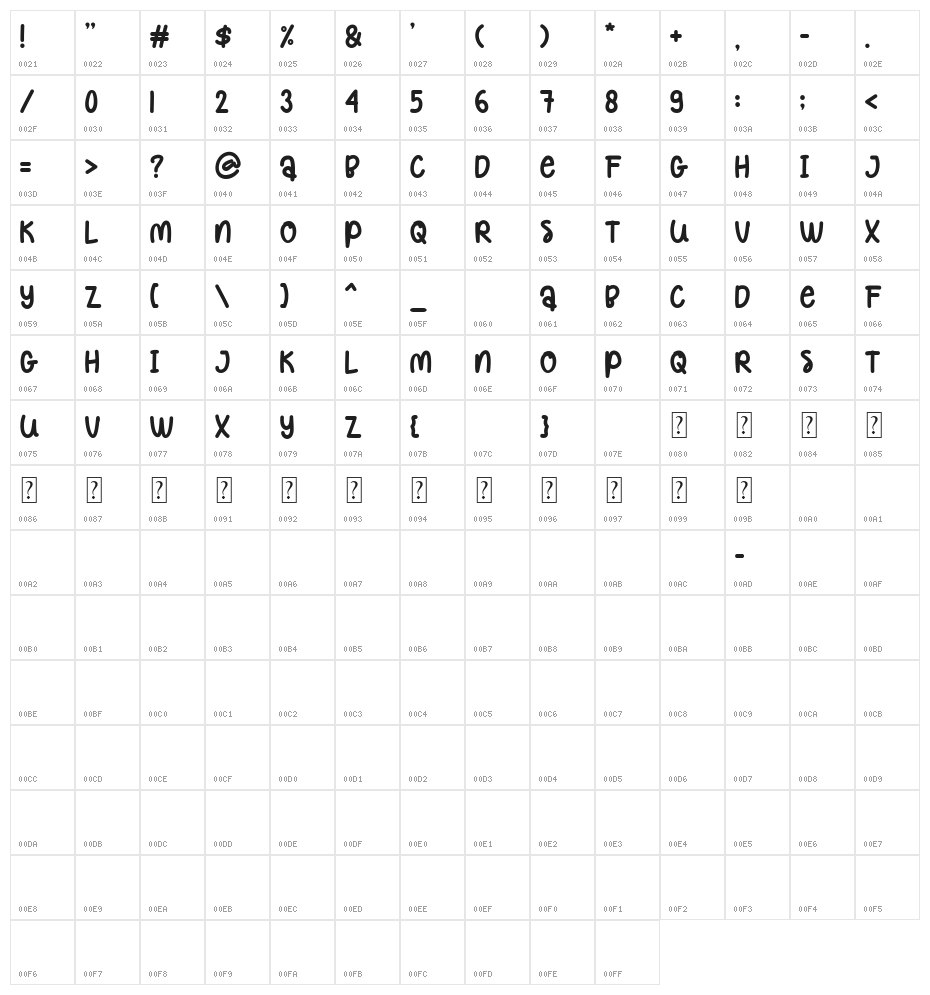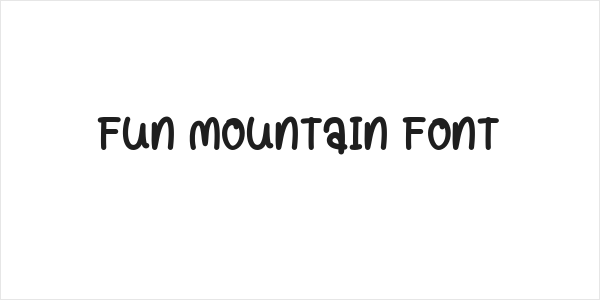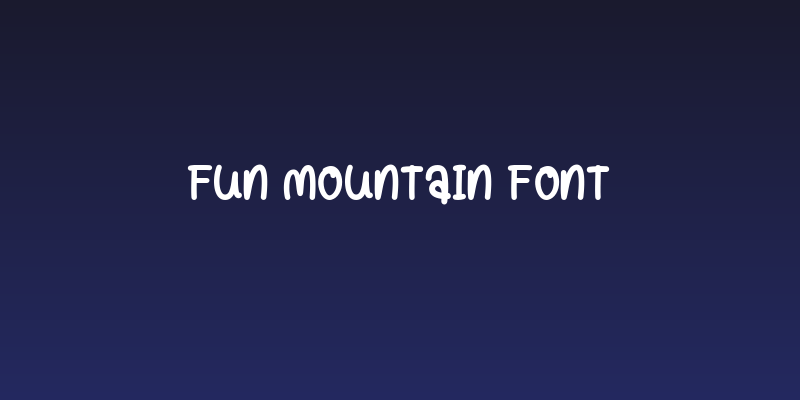
Fun Mountain Font Font
Fun Mountain Font Description
This playful and whimsical font features rounded, bold characters with a hand-drawn appearance. The letters are slightly irregular, giving them a fun and casual vibe. The strokes are thick and consistent, providing a strong visual presence. The overall style is reminiscent of playful doodles or children's handwriting, making it ideal for projects that require a friendly and approachable look. The numbers and special characters maintain the same lively style, ensuring consistency across all text elements.
| Proposed Projects | Ideal for children's books, playful branding, greeting cards, and casual invitations. |